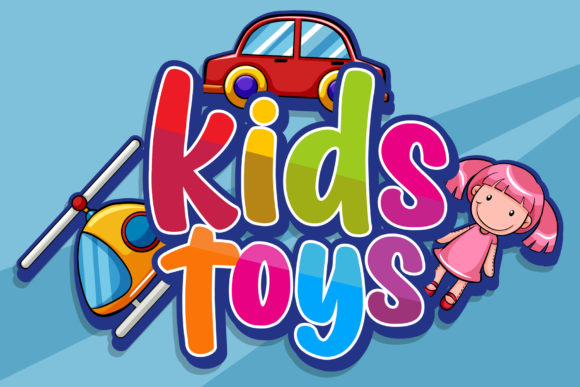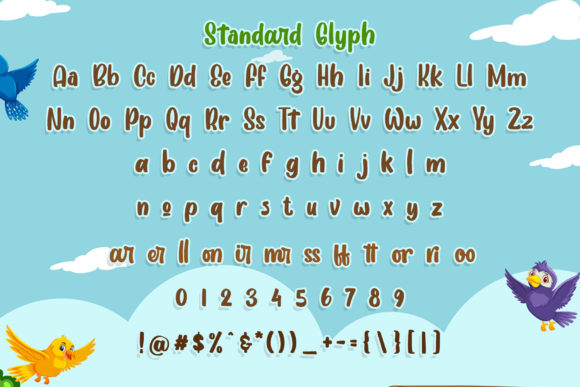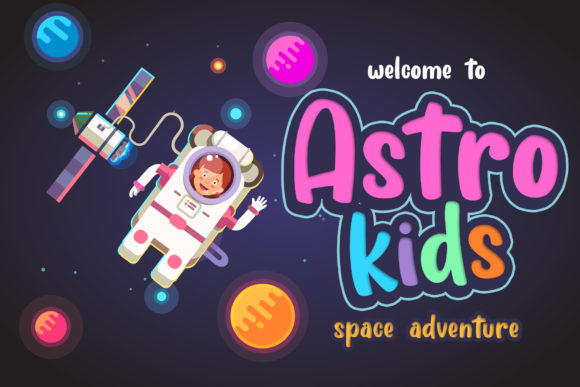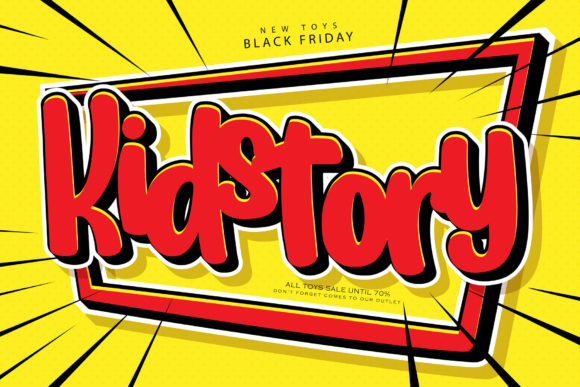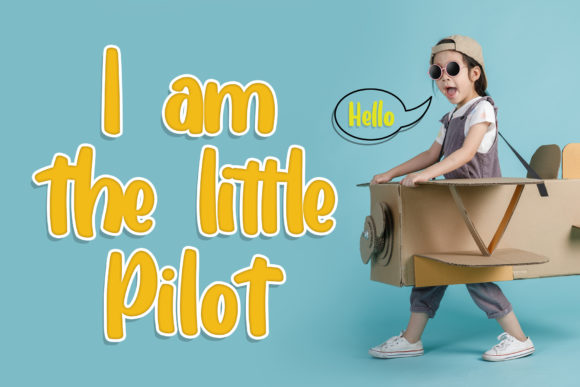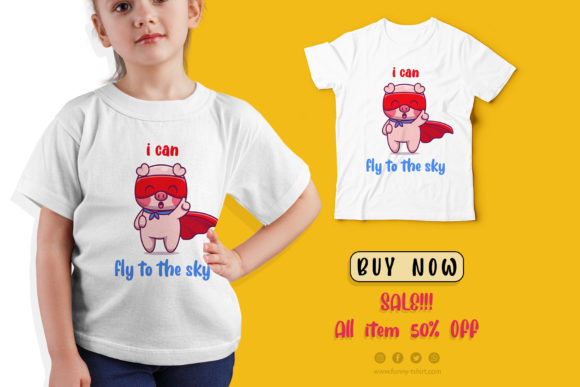
Introducing Cherry Bird Font: Elevate Your Crafting Ideas with a Playful Touch
Are you a designer, crafter, or DIY enthusiast looking for a font that can add a personal touch to your projects? Look no further than Cherry Bird Font, a bold and smooth handwritten font that’s perfect for making your crafting ideas stand out. In this article, we’ll explore the features and benefits of Cherry Bird Font, and how it can elevate your creative projects to the next level.
A Playful and Versatile Font
Cherry Bird Font is a beautifully designed handwritten font that exudes a playful and carefree feel. Its smooth and bold strokes make it perfect for a wide range of crafting ideas, from DIY signs and posters to handmade cards and invitations. Whether you’re a professional designer or a hobbyist, Cherry Bird Font is sure to inspire your creativity and add a personal touch to your projects.
One of the standout features of Cherry Bird Font is its PUA (Private Use Area) encoding. This means that you can access all of the glyphs and swashes with ease, giving you complete creative control over your projects. With PUA encoding, you can easily insert special characters, ligatures, and other decorative elements to add texture and interest to your designs.
Perfect for Crafters and Designers
Cherry Bird Font is specifically designed with crafters and designers in mind. Its playful and versatile nature makes it perfect for a wide range of projects, including:
- DIY signs and posters
- Handmade cards and invitations
- Scrapbooking and journaling
- Crafting and sewing projects
- Digital art and design
Benefits of Using Cherry Bird Font
So why choose Cherry Bird Font for your next project? Here are just a few benefits of using this amazing font:
- Unique and eye-catching designs: Cherry Bird Font is sure to make your projects stand out from the crowd.
- Easy to use: With PUA encoding, you can access all of the glyphs and swashes with ease.
- Versatile: Cherry Bird Font is perfect for a wide range of projects, from DIY signs to digital art.
- High-quality design: Cherry Bird Font is beautifully designed with smooth and bold strokes.
Tips for Using Cherry Bird Font
Here are a few tips for getting the most out of Cherry Bird Font:
- Experiment with different sizes and colors: Cherry Bird Font looks great in a variety of sizes and colors, so don’t be afraid to experiment.
- Mix and match with other fonts: Cherry Bird Font pairs well with a range of other fonts, so try mixing and matching to create a unique look.
- Use the glyphs and swashes to add texture: With PUA encoding, you can easily add texture and interest to your designs using the glyphs and swashes.
Cherry Bird Font is a bold and smooth handwritten font that’s perfect for crafters and designers looking to add a playful touch to their projects. With its PUA encoding and versatile nature, it’s easy to see why Cherry Bird Font is a must-have for anyone looking to elevate their creative projects. So why wait? Download Cherry Bird Font today and start creating unique and eye-catching designs that will make your projects stand out from the crowd!